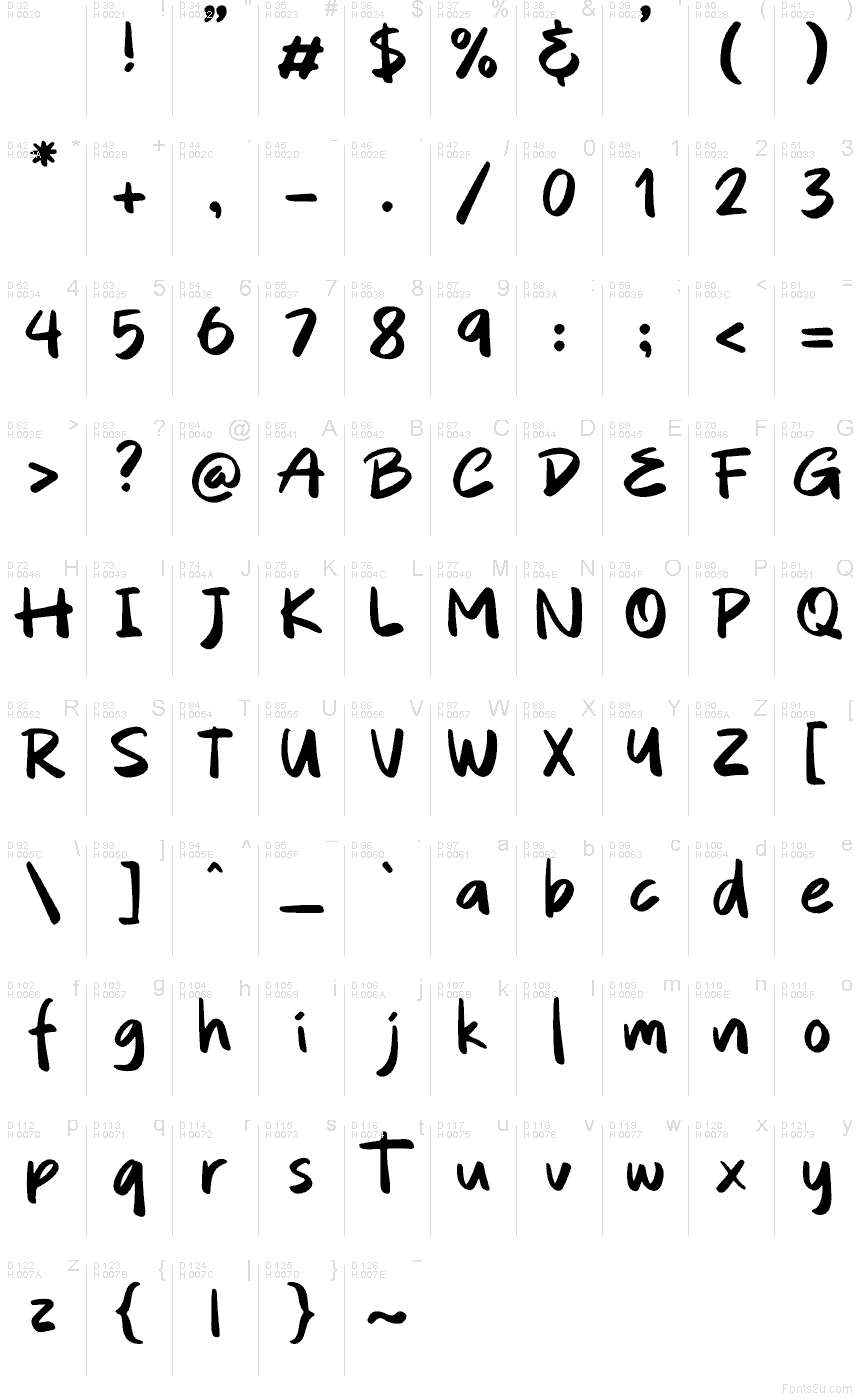
Quintero
Quintero font by Gracetype Studio is a free brush script typeface that gives you that hand-painted look without sacrificing clarity. Its bold strokes feel like wet ink dragged across paper—rounded, slightly irregular, and full of movement—yet the letters stay clean and easy to read at a glance. The rhythm between characters feels relaxed but not messy, making Quintero a reliable choice when you need something human and expressive that still holds up in real-world layouts.
Using Quintero, this free font shines on logos, product packaging, posters, t‑shirts, greeting cards, social media graphics, and event invitations where you want warmth and personality to come through instantly. The weighty brush texture grabs attention on its own, so you can keep color palettes simple and let the lettering do the talking. For a polished look, pair Quintero with a plain, narrow sans serif for supporting text and keep the script for short, punchy phrases or names.